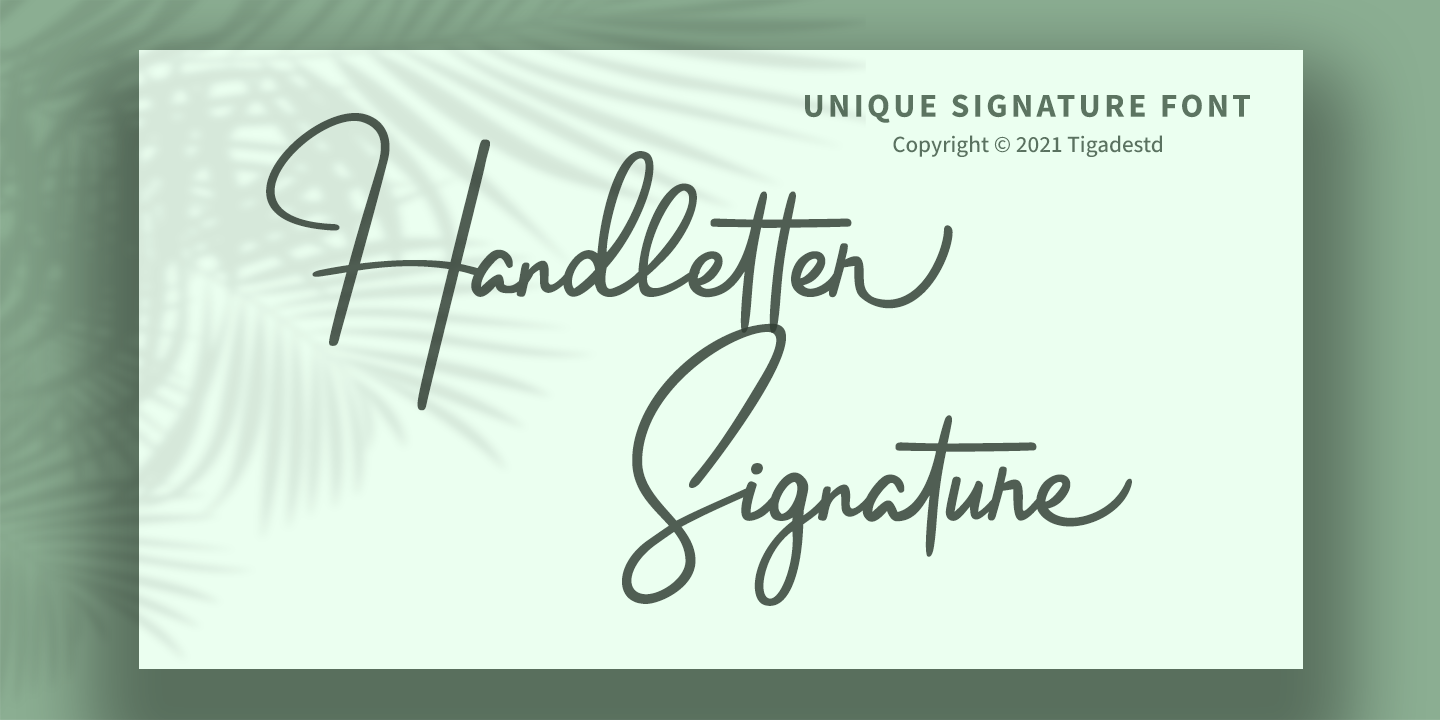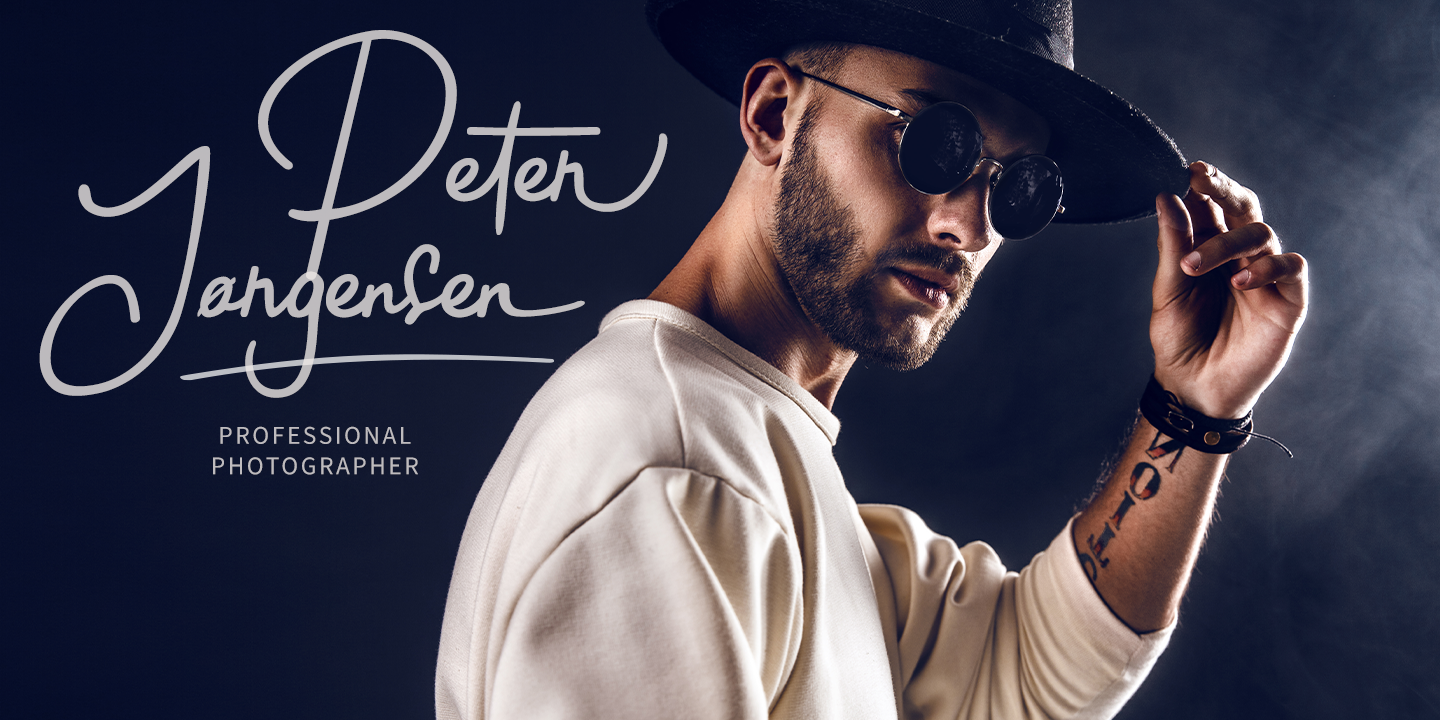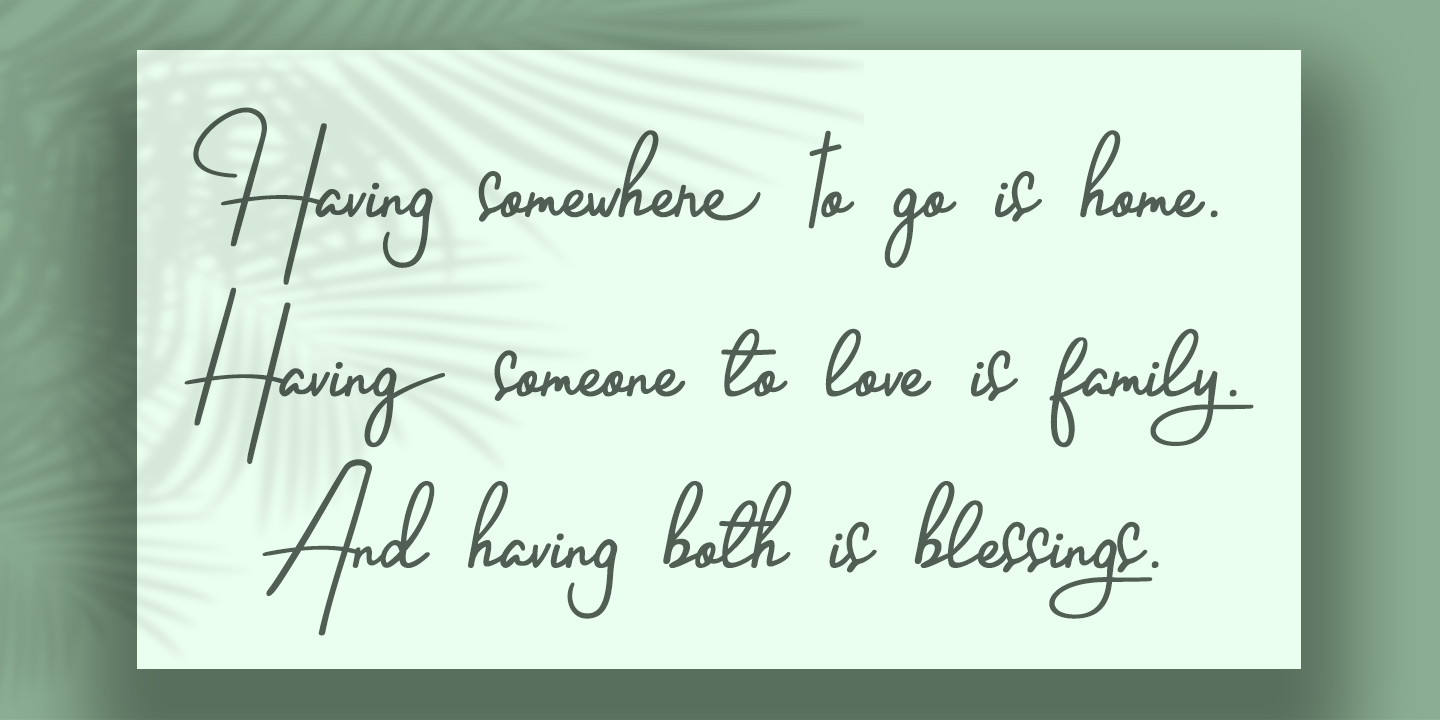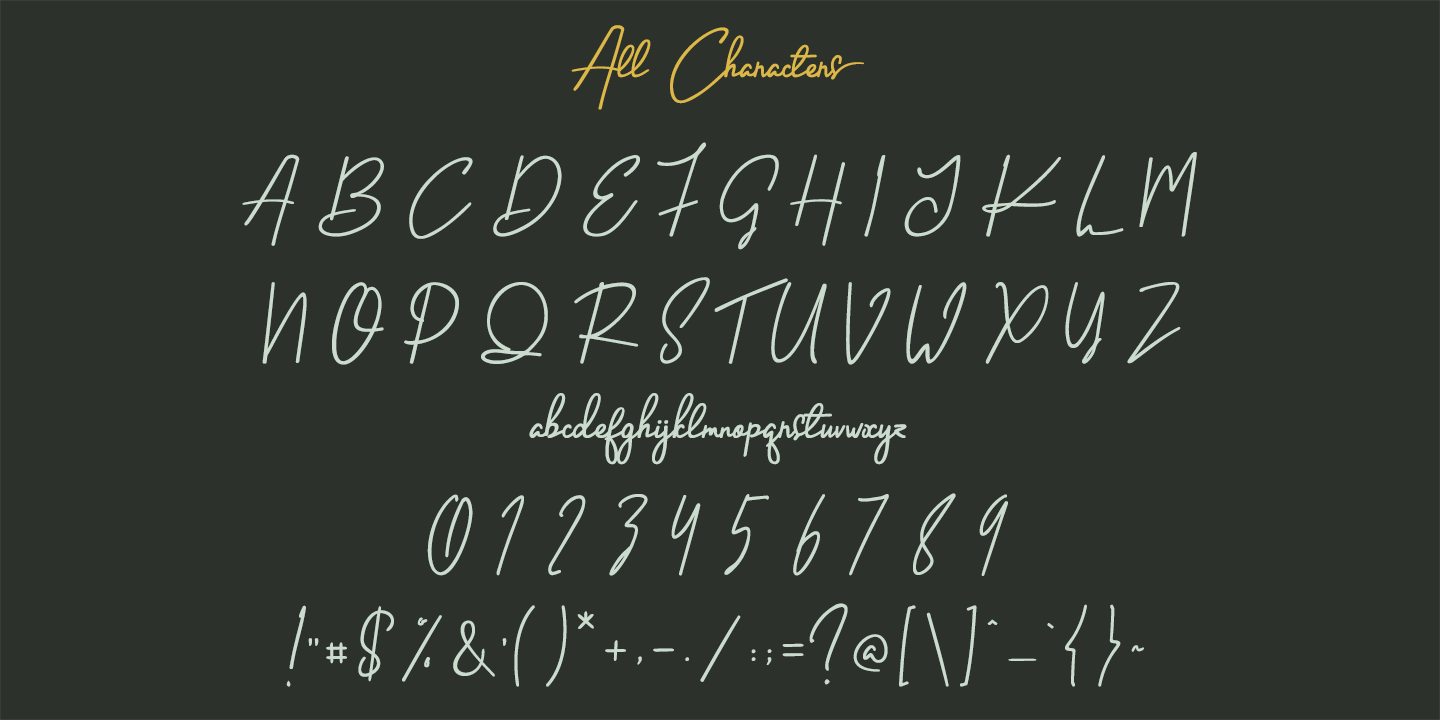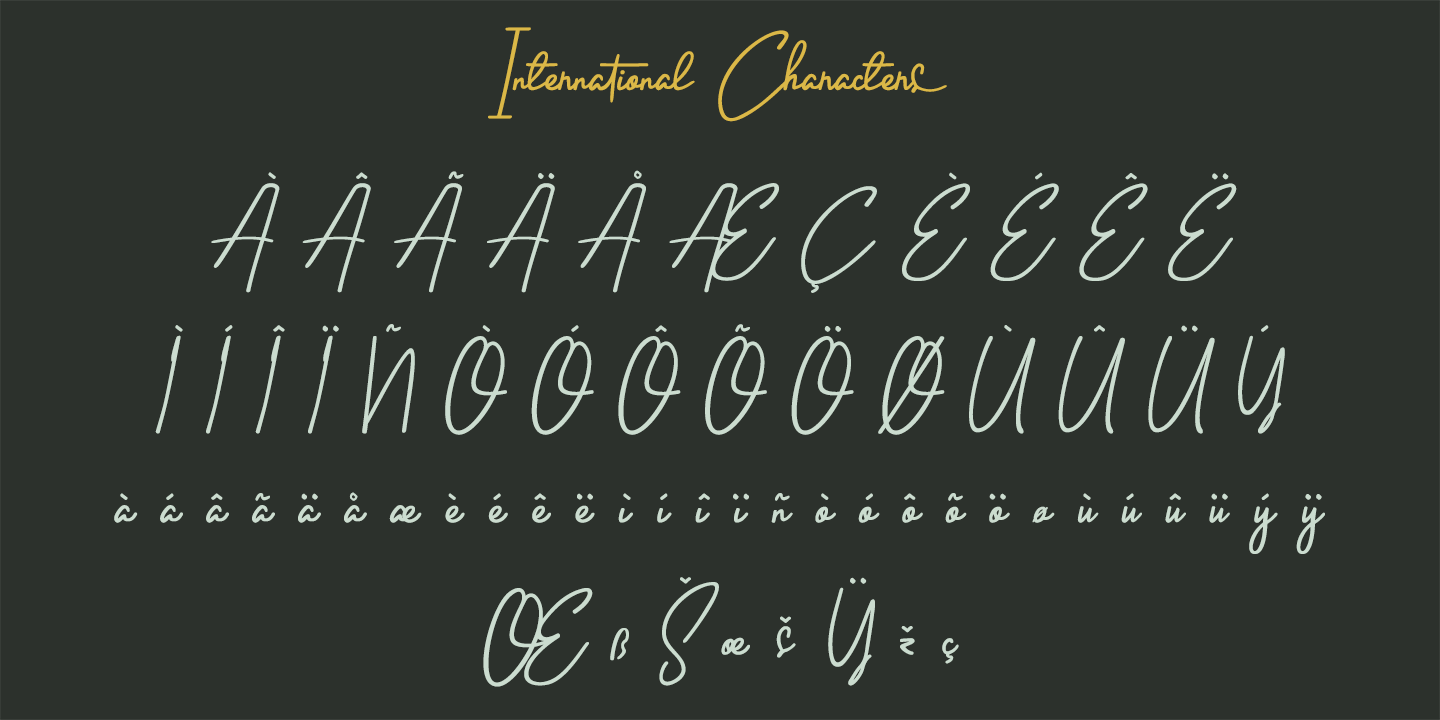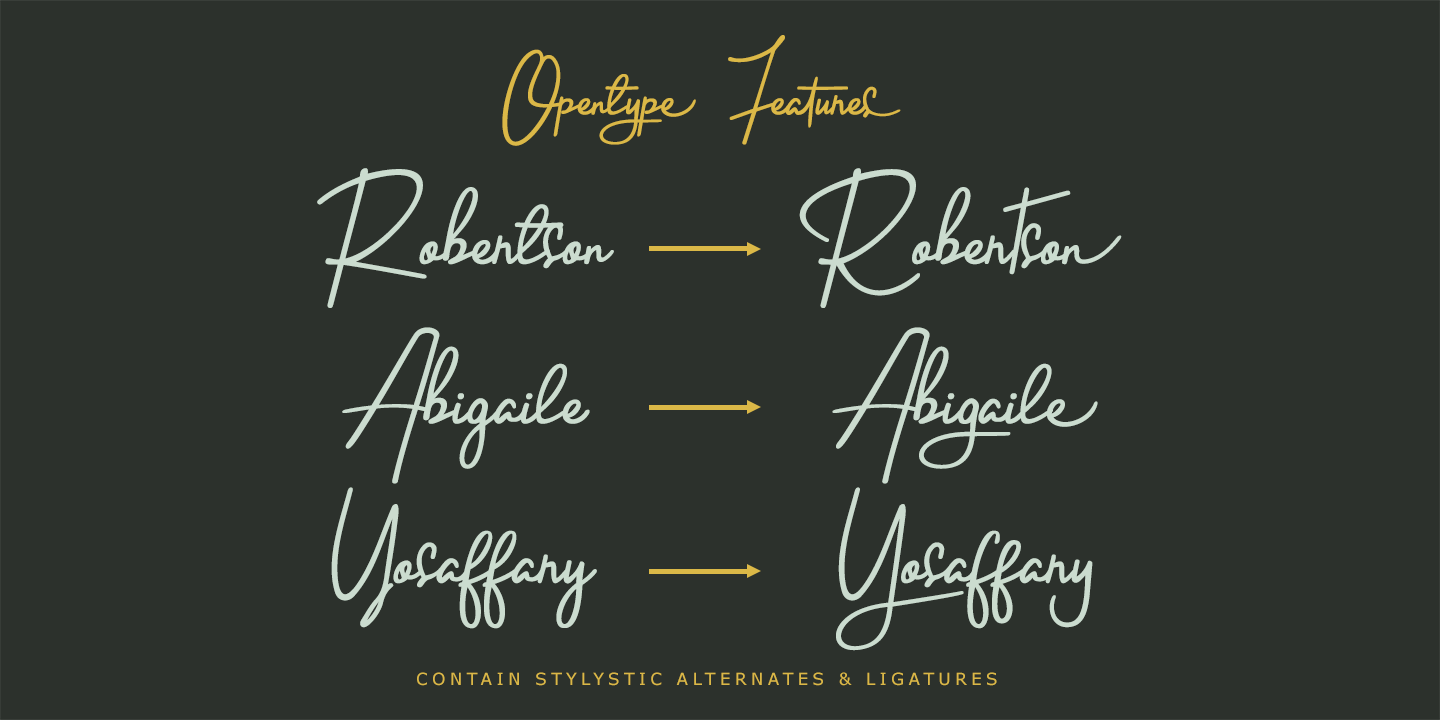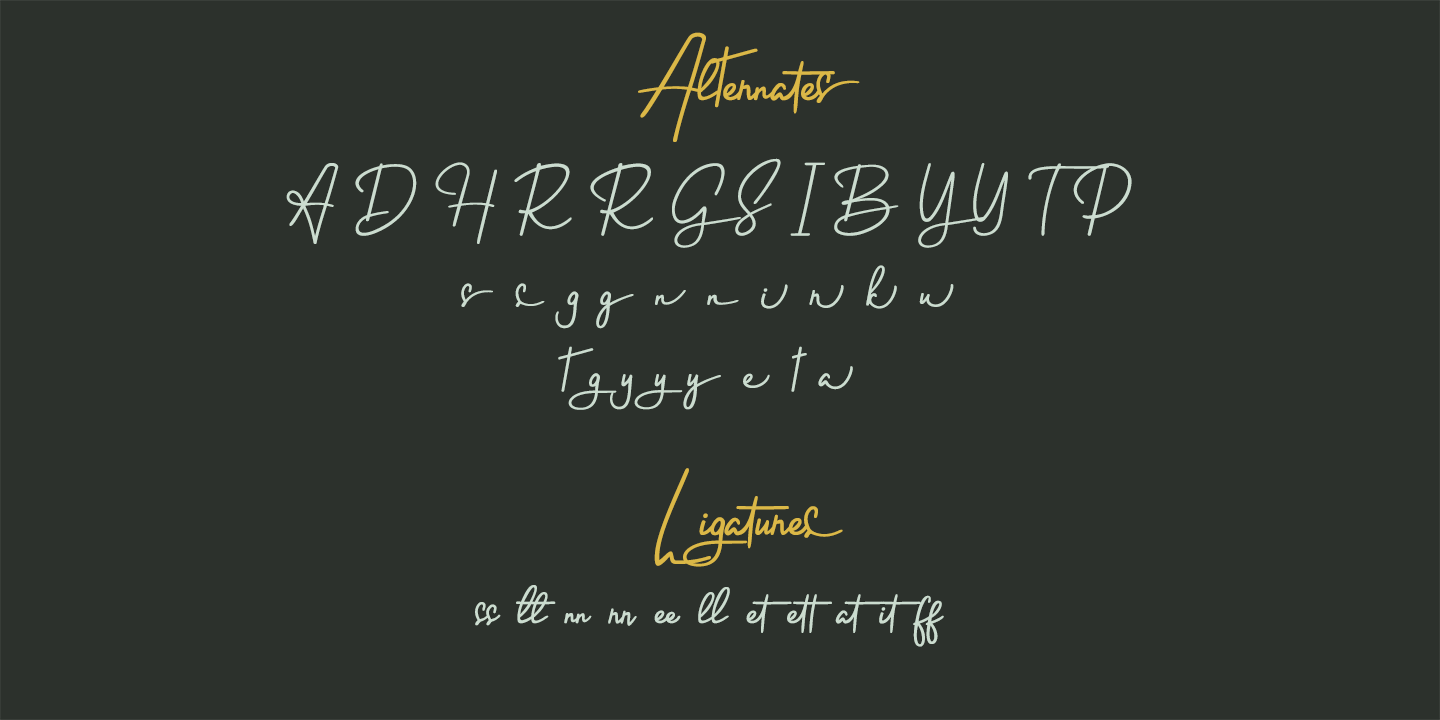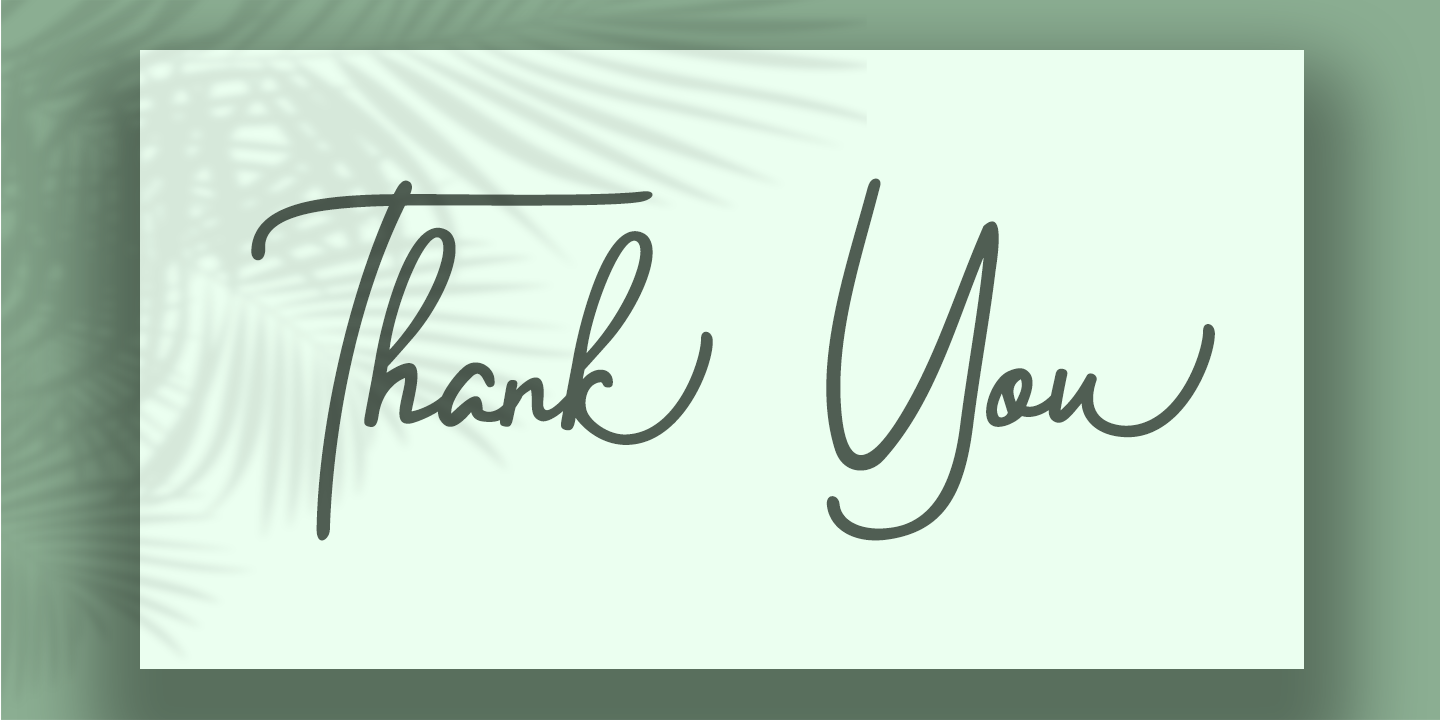
Handletter Signature is a gorgeous, elegant and unique handletter-based signature font with a modern look. Improve your design or make it as your own signature!